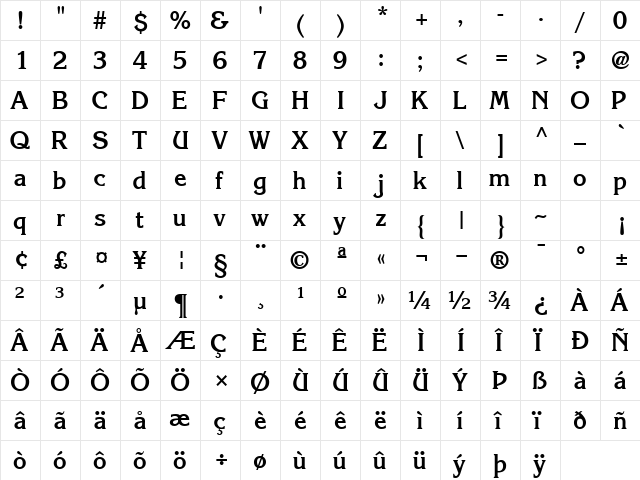
IntuitionSSK Bold Font Preview
IntuitionSSK Bold
Design Context for IntuitionSSK Typeface
IntuitionSSK is a composed and adaptable typeface that performs quietly and consistently across a wide range of design contexts. The heavy weight commands attention and anchors typographic hierarchies.